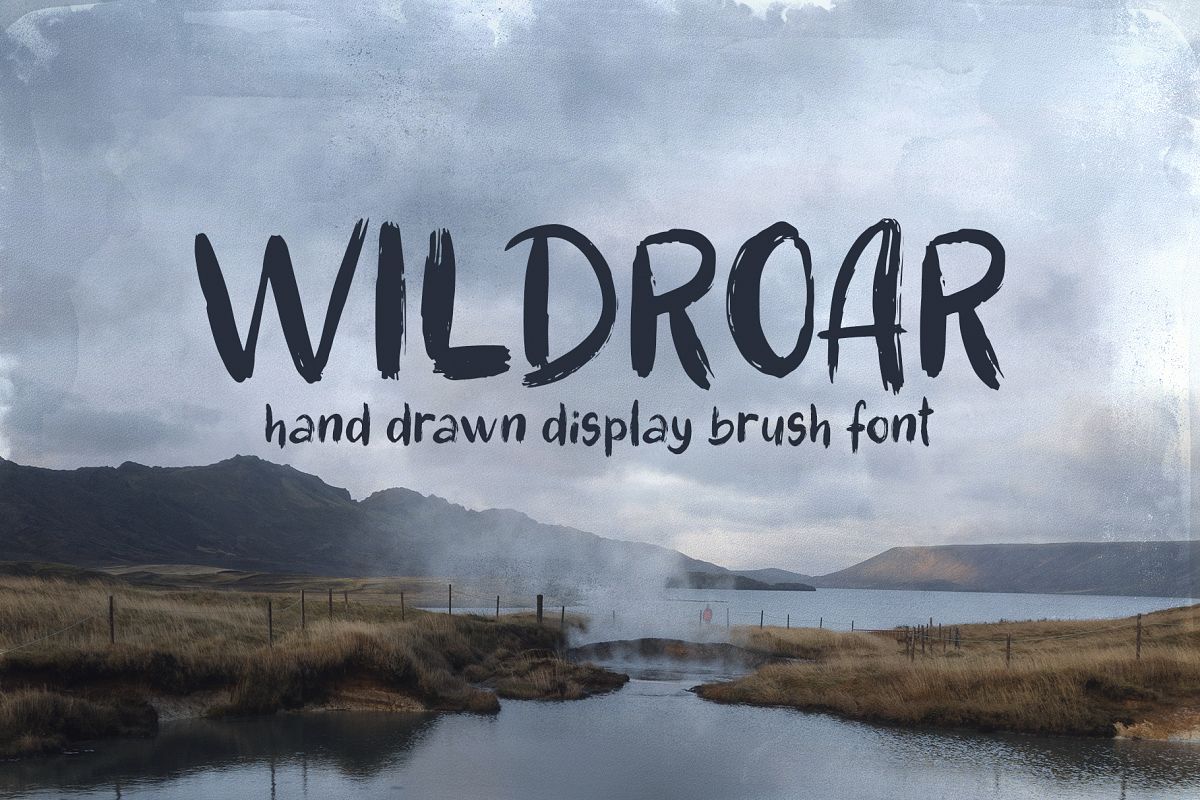
WILDROAR
Let me introduce my new product - WILDROAR! A slightly rough hand drawn brush style is so natural, and I think it will be something new for your design!)
Includes Uppercase, Lowercase, Numbers & Punctuation, all letters are textured and hand drawn.
Fonts are perfect for logotype creation, fashion projects, book design cover, magazines typography, cards, packagings, posters, branding, blogging and more.
You can also create many of other typography designs.